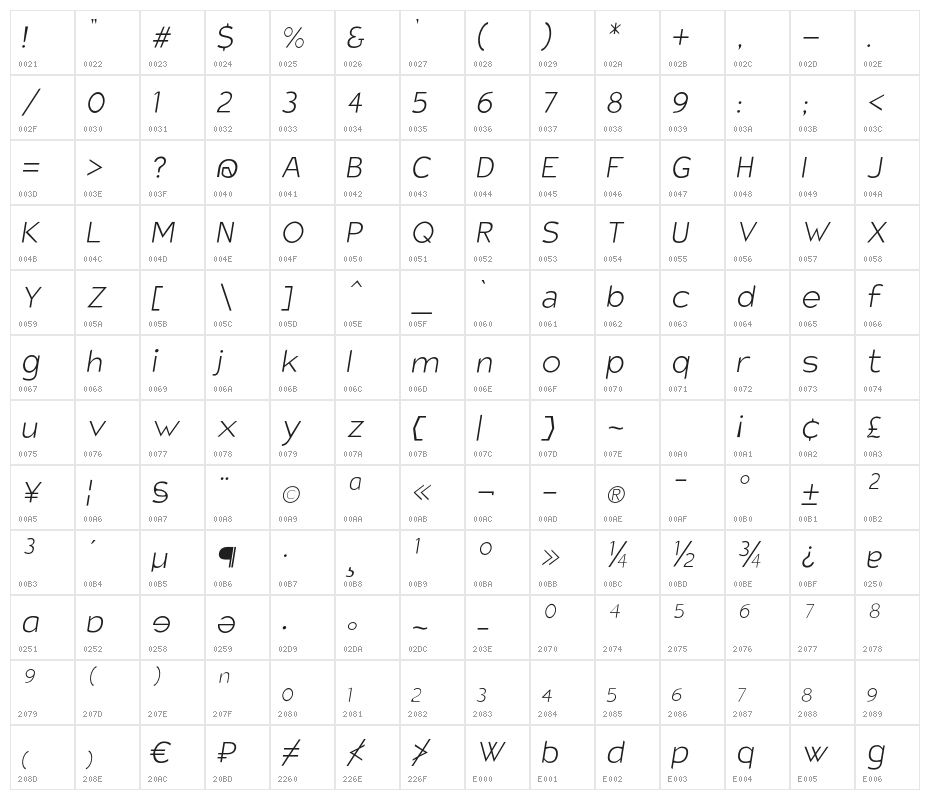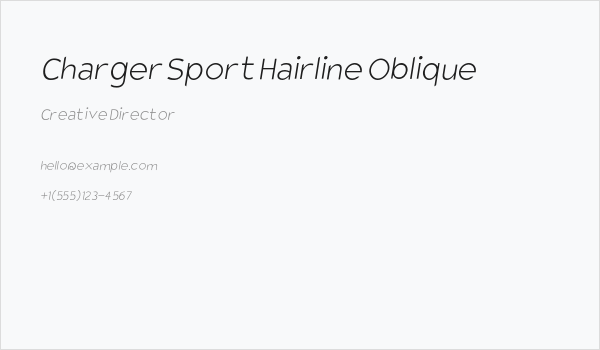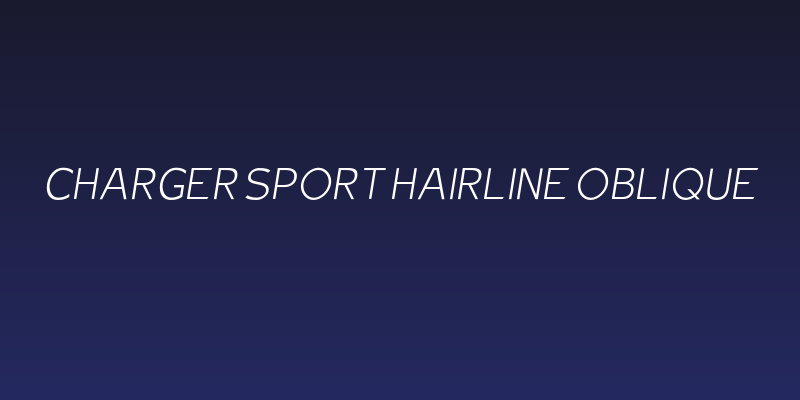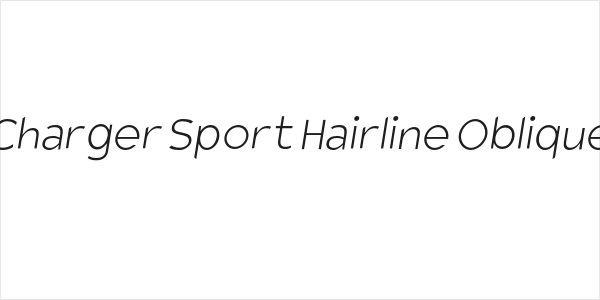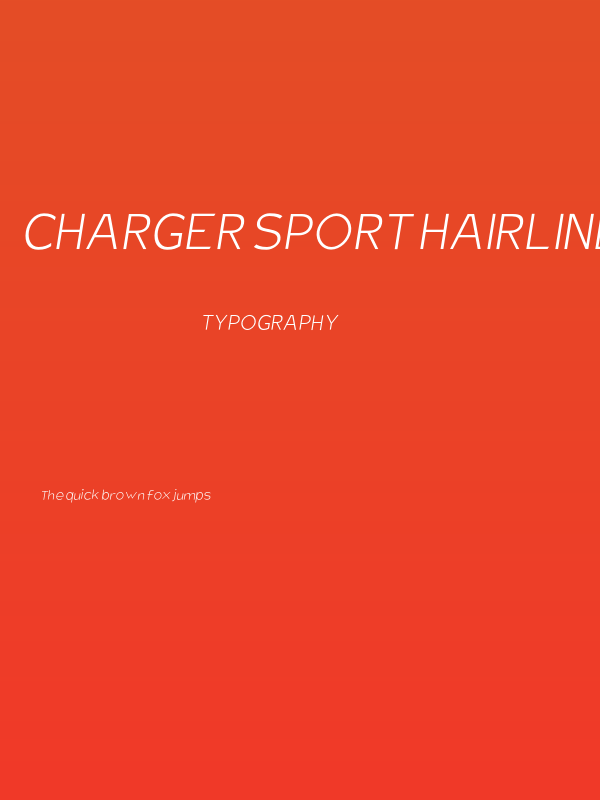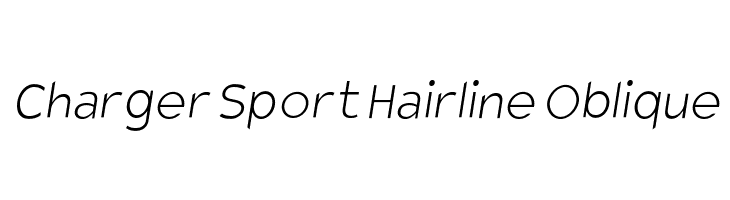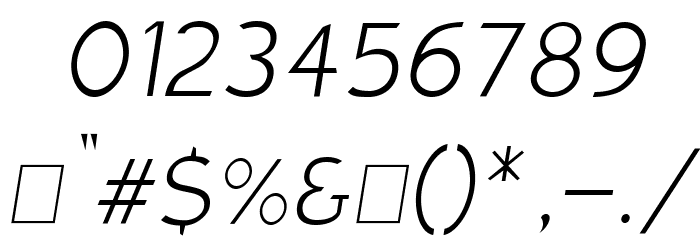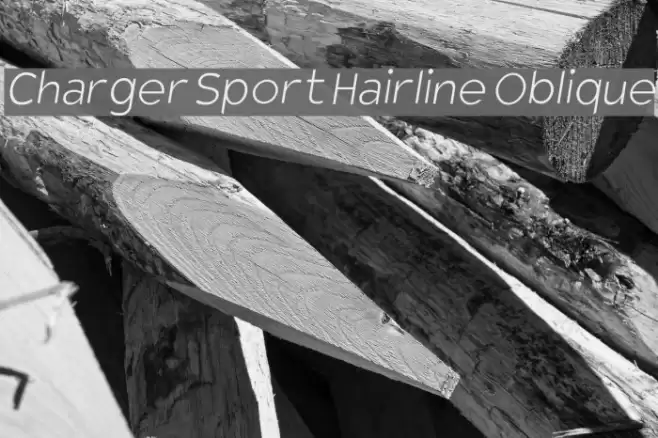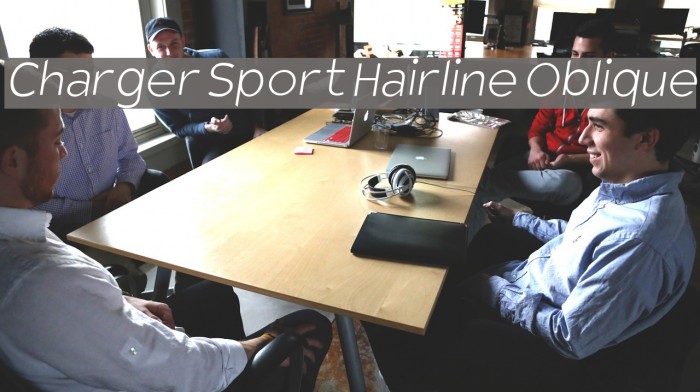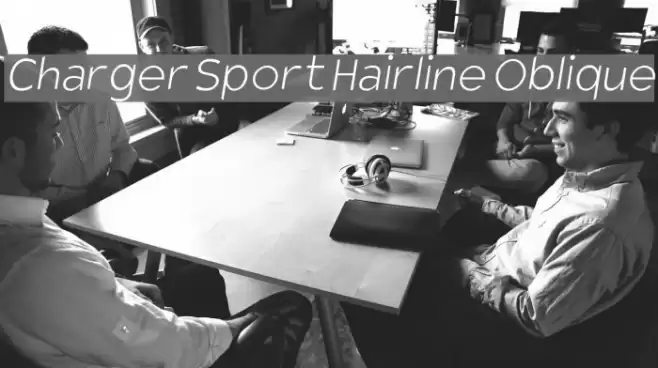
Charger Sport Hairline Oblique Font
Charger Sport Hairline Oblique Description
This font features a sleek, oblique style with a hairline weight, giving it a modern and sophisticated appearance. The characters are elegantly slanted, providing a sense of motion and dynamism. The uppercase and lowercase letters maintain a consistent stroke width, contributing to a clean and minimalist aesthetic. The numerals are clear and legible, matching the overall style of the alphabet. Special characters are included, seamlessly integrating with the rest of the font. The design is ideal for projects that require a contemporary and stylish look.